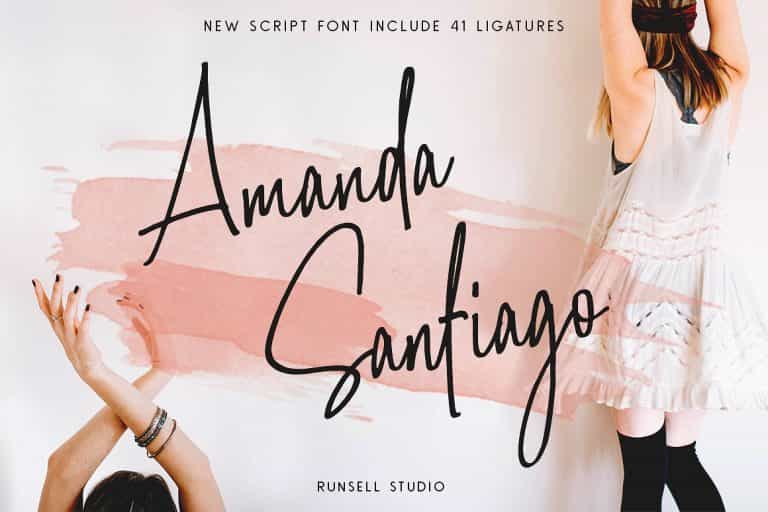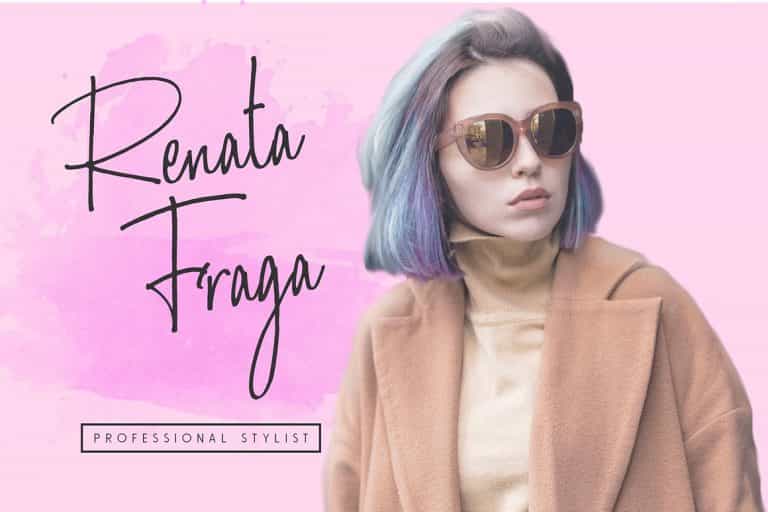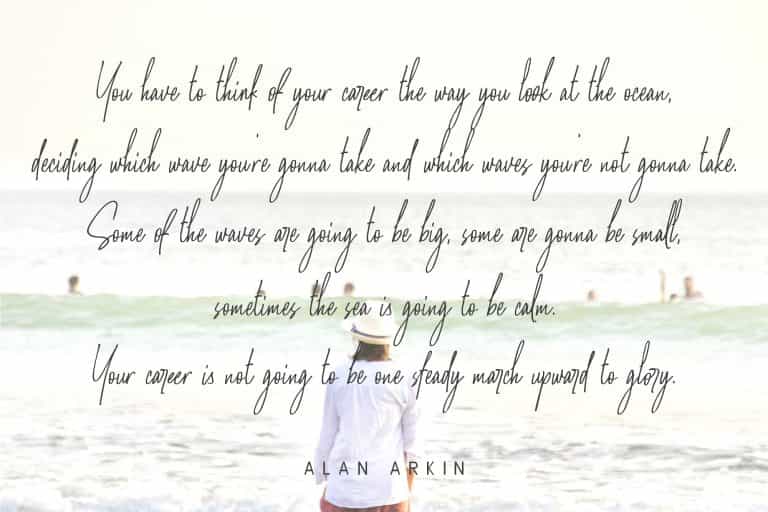
Amanda Santiago – the new fresh handmade signature font. This application is made and shared by Runsell Studio. Amanda Santiago that can give your design a real and handmade look. Amanda Santiago has 4 style and 1 modern sans.